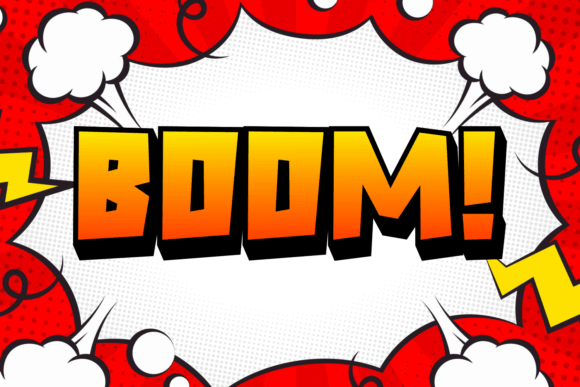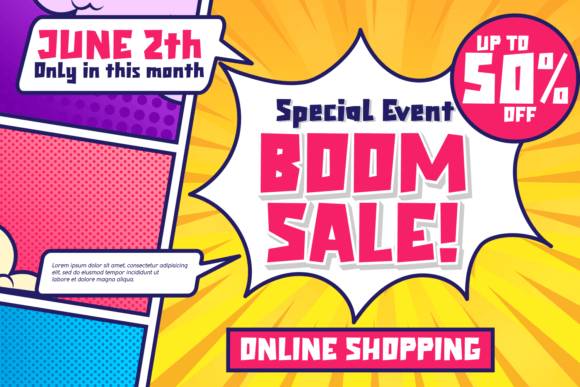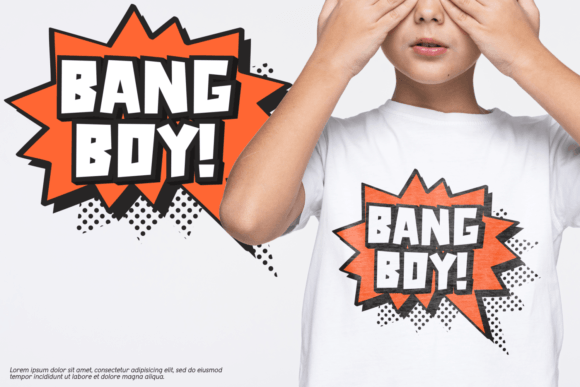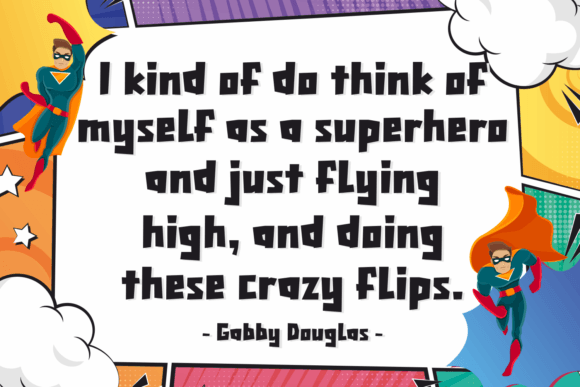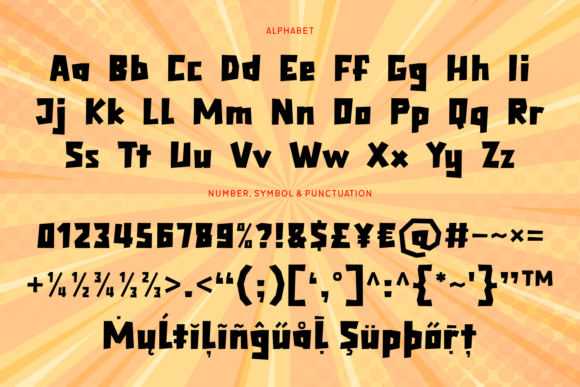
Unleash Your Creativity with Action Comic Font
Are you looking for a font that can add a touch of excitement and energy to your designs? Look no further than the Action Comic Font! This blocky and explosive typeface is straight out of a comic book and is perfect for designers and crafters who want to give their projects a cartoony look.
What is Action Comic Font?
Action Comic Font is a unique and eye-catching typeface that is inspired by the classic comic books of the past. Its bold and blocky design makes it perfect for headlines, titles, and any other text that needs to stand out. The font is designed to be highly legible, even at small sizes, making it versatile for use in a variety of projects.
Key Features of Action Comic Font
- Blocky and Explosive Design: The Action Comic Font has a bold and blocky design that is reminiscent of classic comic books.
- Highly Legible: The font is designed to be highly legible, even at small sizes, making it perfect for use in a variety of projects.
- Cartoony Look: The Action Comic Font is perfect for designers and crafters who want to give their projects a cartoony look.
Uses of Action Comic Font
The Action Comic Font is perfect for a variety of projects, including:
- Comic Books and Graphic Novels: The font is perfect for creating comic books and graphic novels that require a bold and eye-catching typeface.
- Posters and Flyers: The font is great for creating posters and flyers that need to grab attention.
- Digital Art and Illustrations: The font can be used to add a touch of personality to digital art and illustrations.
- Crafting and Scrapbooking: The font is perfect for crafters and scrapbookers who want to add a bold and playful touch to their projects.
Tips for Using Action Comic Font
Here are some tips for using the Action Comic Font:
- Use it for Headlines and Titles: The font is perfect for headlines and titles, where a bold and eye-catching typeface is needed.
- Experiment with Colors and Effects: The font can be used with a variety of colors and effects to create a unique and eye-catching look.
- Pair it with Other Fonts: The font can be paired with other fonts to create a unique and interesting look.
The Action Comic Font is a unique and eye-catching typeface that is perfect for designers and crafters who want to add a touch of excitement and energy to their projects. With its blocky and explosive design, PUA encoding, and high legibility, this font is perfect for a variety of projects, from comic books and graphic novels to posters and flyers. So why not give it a try and see how it can unleash your creativity?
- Is Action Comic Font suitable for body text?: While the font is highly legible, it’s best suited for headlines and titles. For body text, a more traditional font may be more suitable.